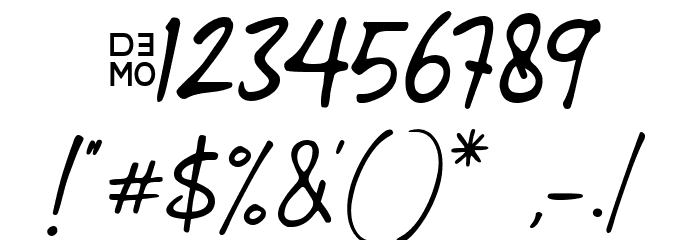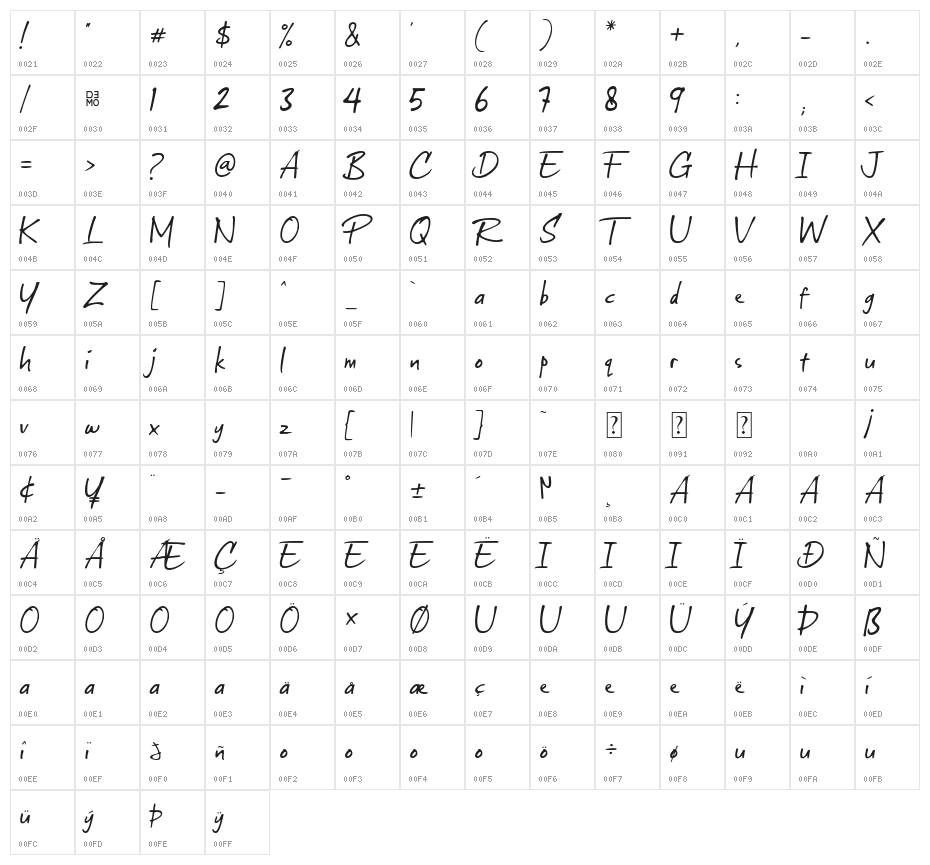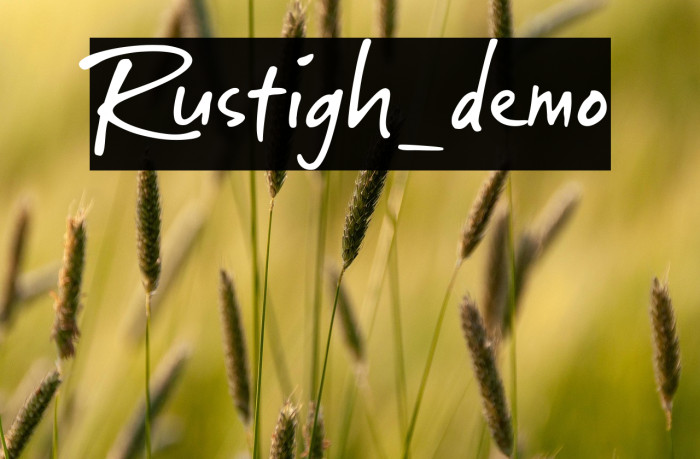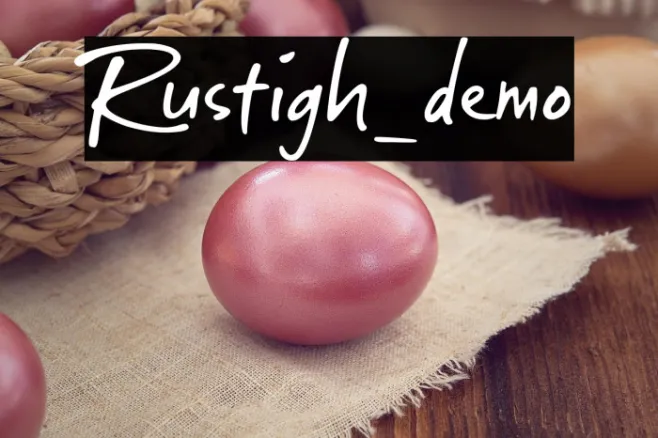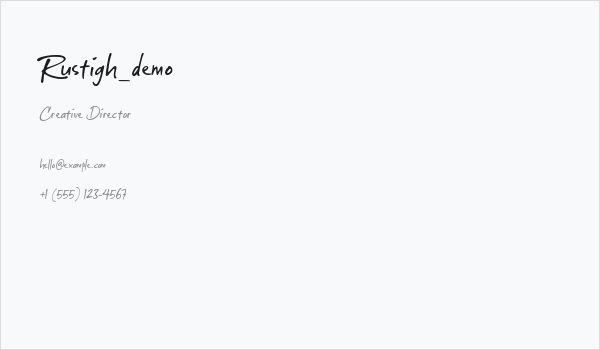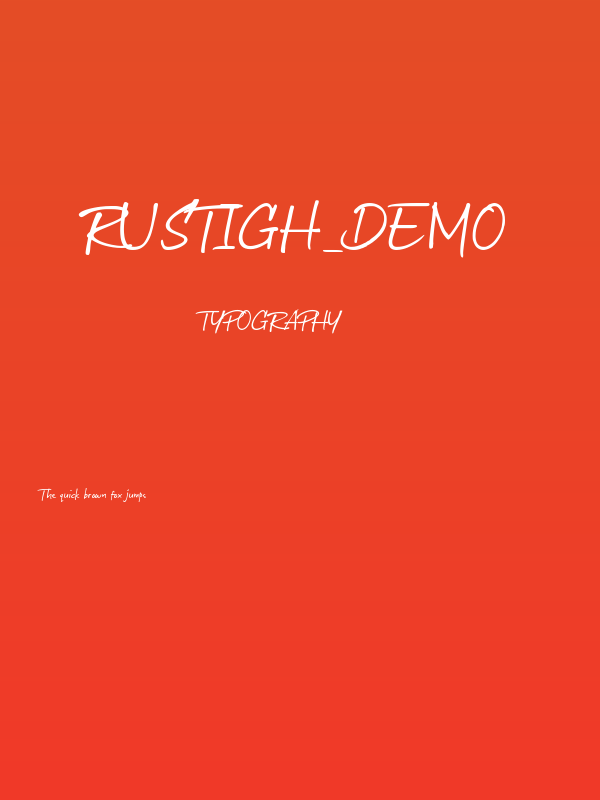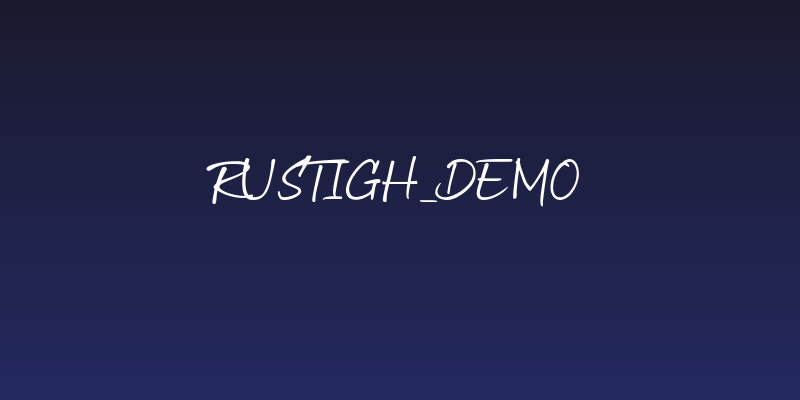
Rustigh_demo Font
Rustigh_demo Description
This font exhibits a casual, handwritten style with a playful and dynamic appearance. The letters are slightly slanted, giving a sense of motion and energy. The strokes are smooth and fluid, with varying thickness that adds a lively character to the text. Uppercase letters are bold and prominent, while lowercase letters maintain a consistent flow. The numerals are distinct and easy to read, complementing the overall aesthetic. Special characters are creatively designed, enhancing the font's versatility.
| Proposed Projects | Ideal for greeting cards, invitations, personal branding, and creative projects that require a friendly and approachable look. |